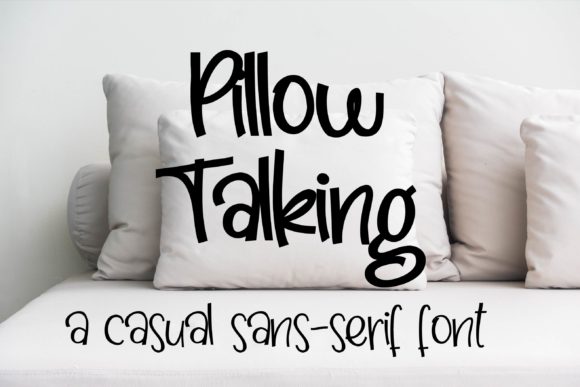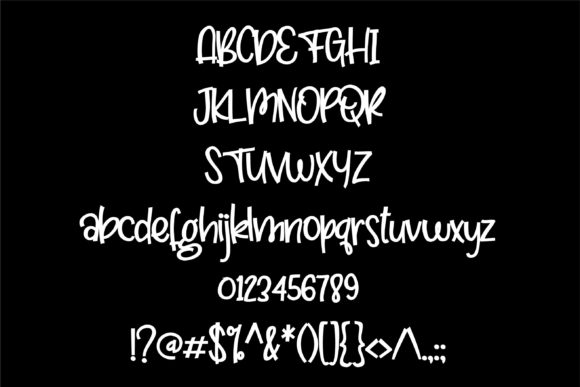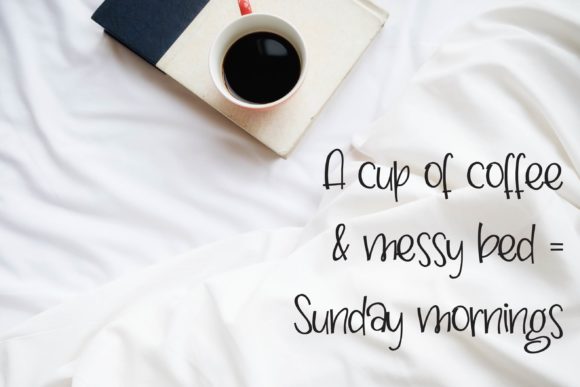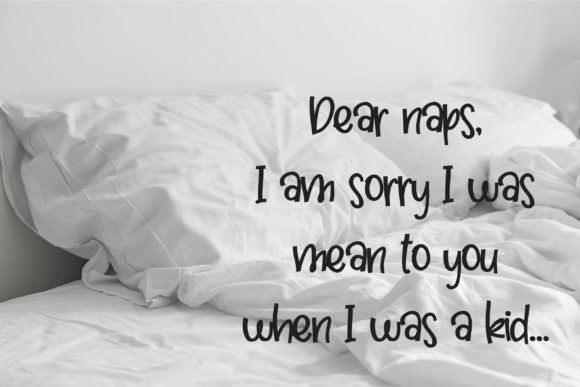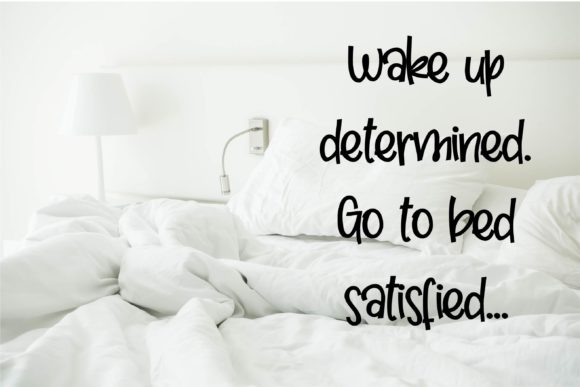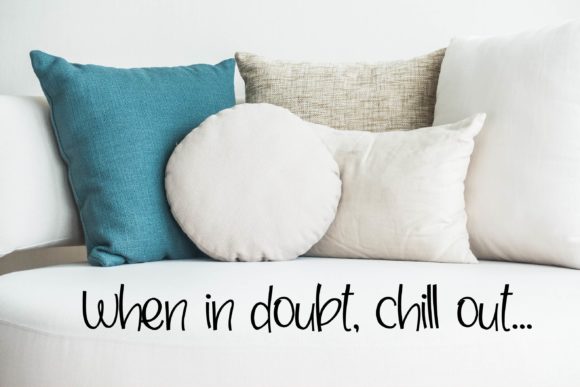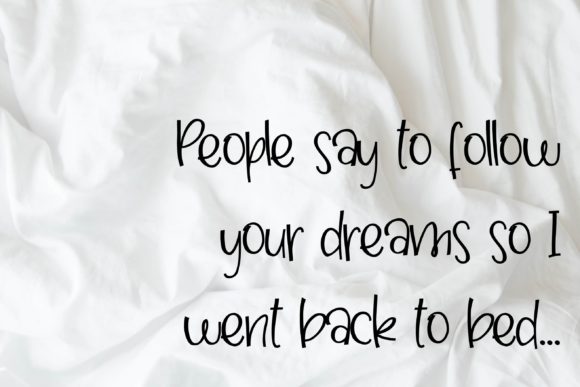
Pillow Talking Font
About Pillow Talking Font
Pillow Talking is a boldly hand-written sans serif with a casual feel. It comes in two distinct versions, Regular and Lite. Get inspired by its versatile charm!